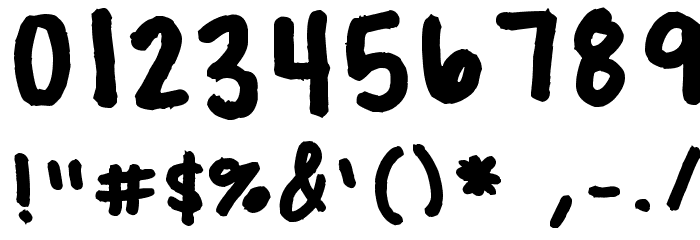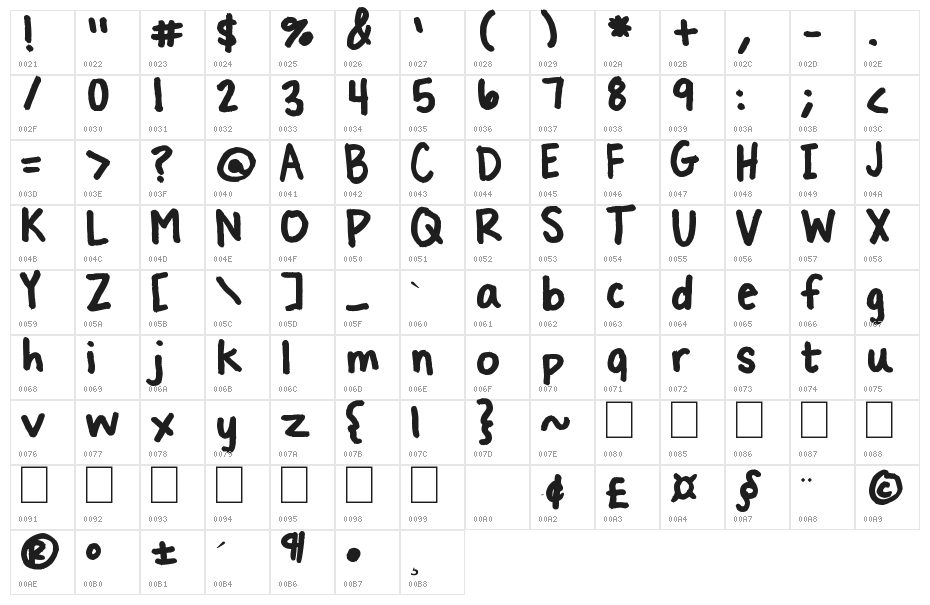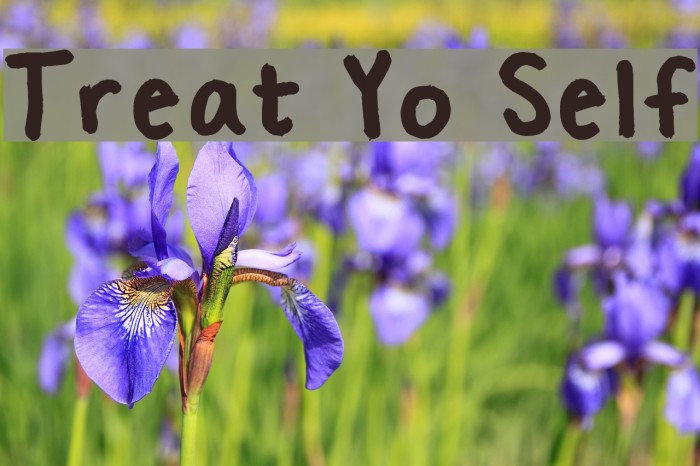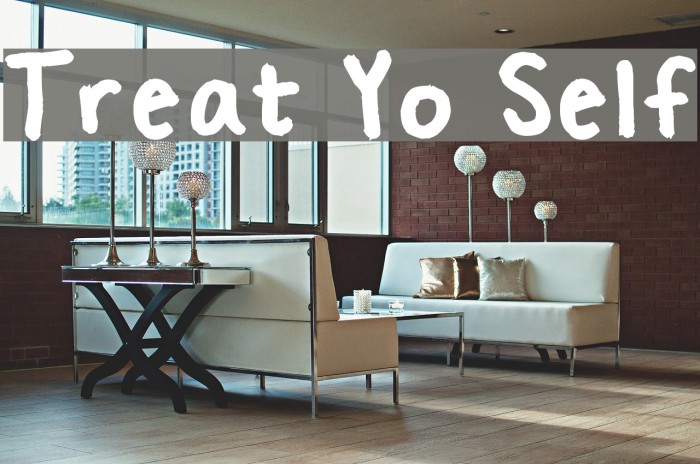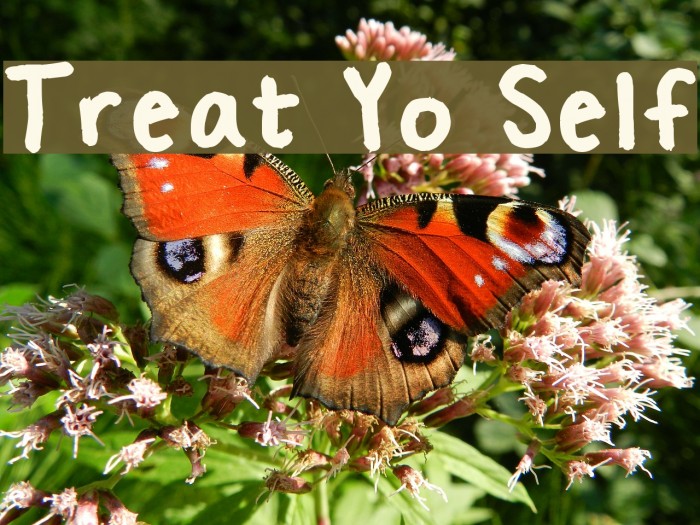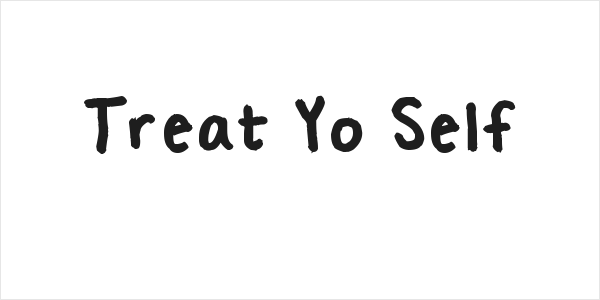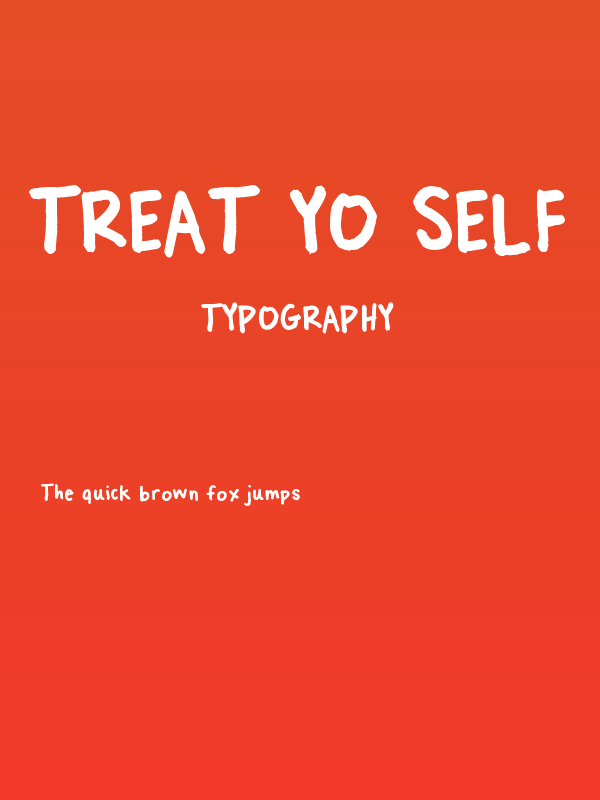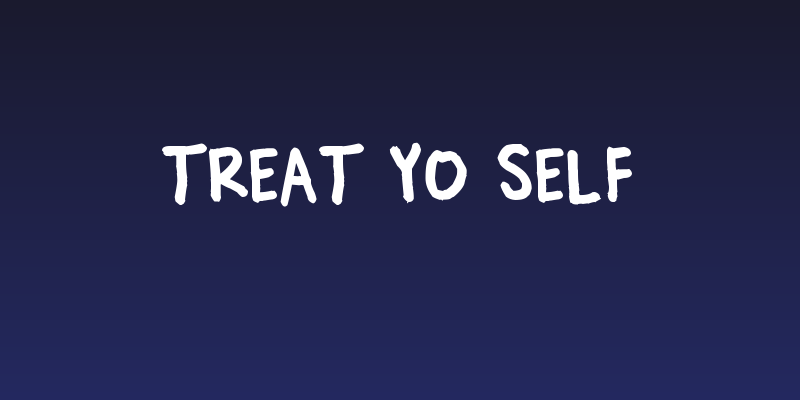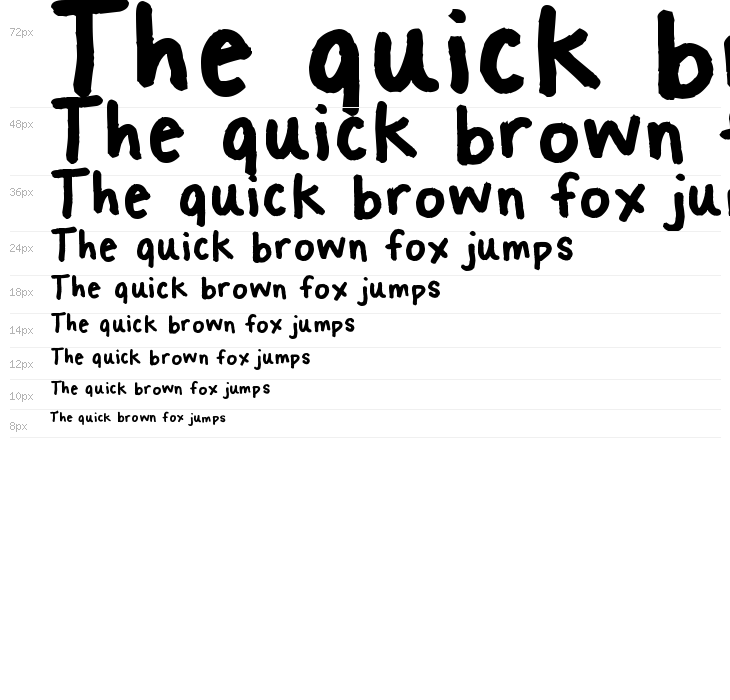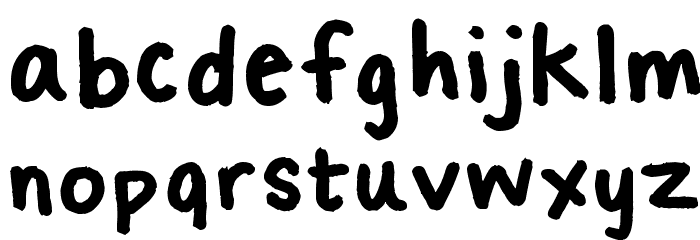
Treat Yo Self Font
Treat Yo Self Description
This playful and bold handwritten font exudes a casual and friendly vibe. The letters are slightly irregular, adding a touch of whimsy and personality. The strokes are thick and consistent, giving the font a strong presence on the page. The uppercase and lowercase letters maintain a cohesive style, while the numbers and special characters are easily legible and match the overall aesthetic. This font is perfect for projects that require a personal touch, such as greeting cards, posters, or social media graphics. Its informal style makes it ideal for conveying warmth and approachability.
| Overall Style | Playful, Casual |
| Proposed Projects | Greeting cards, posters, social media graphics, children's books. |